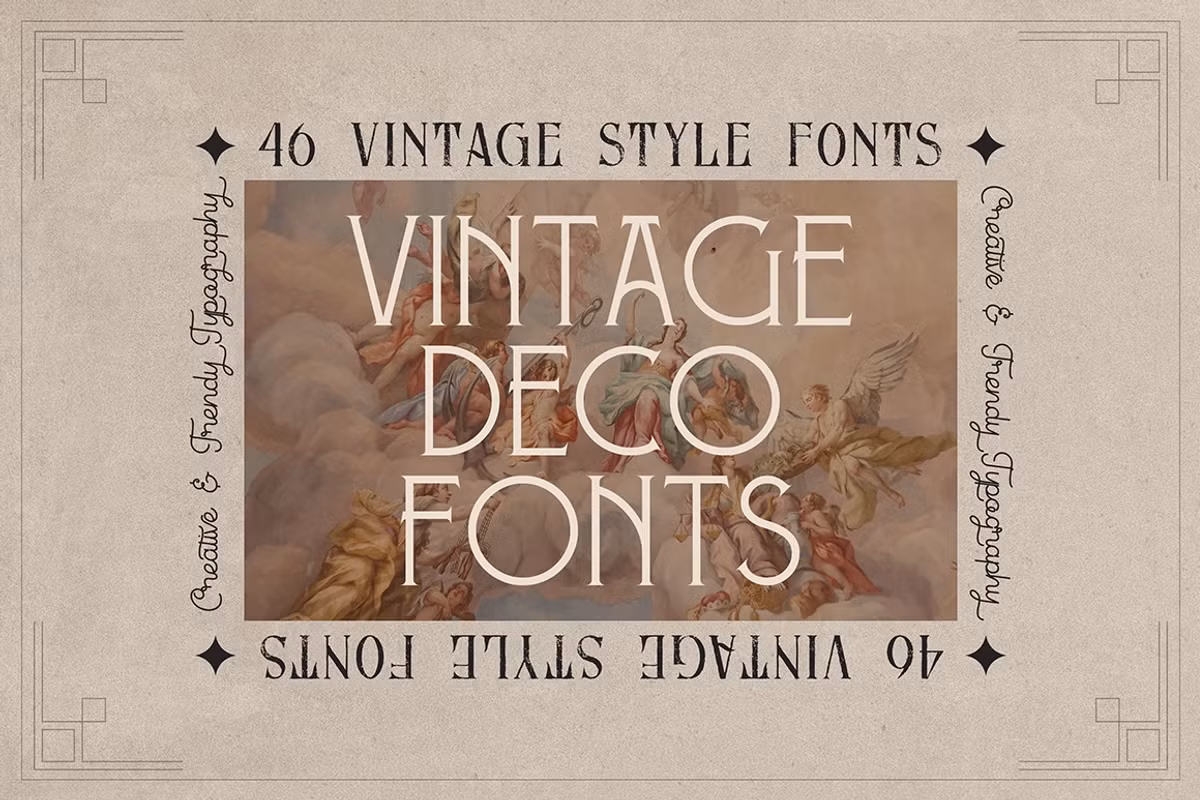
Vintage Decorative Fonts - 46 Fonts Free Download
Vintage Decorative Fonts - 46 Fonts Free Download is a comprehensive collection of 46 unique and ornate fonts that bring a nostalgic and vintage charm to your designs. This bundle features a wide variety of decorative fonts with intricate details, perfect for retro branding, signage, logos, posters, packaging, and more.
Whether you're working on designs for a vintage-inspired brand, a retro product line, or creating custom typography for an event, this collection offers a diverse range of styles to suit all your creative needs. From elegant serifs to bold display fonts, the Vintage Decorative Fonts bundle adds personality and character to any project.